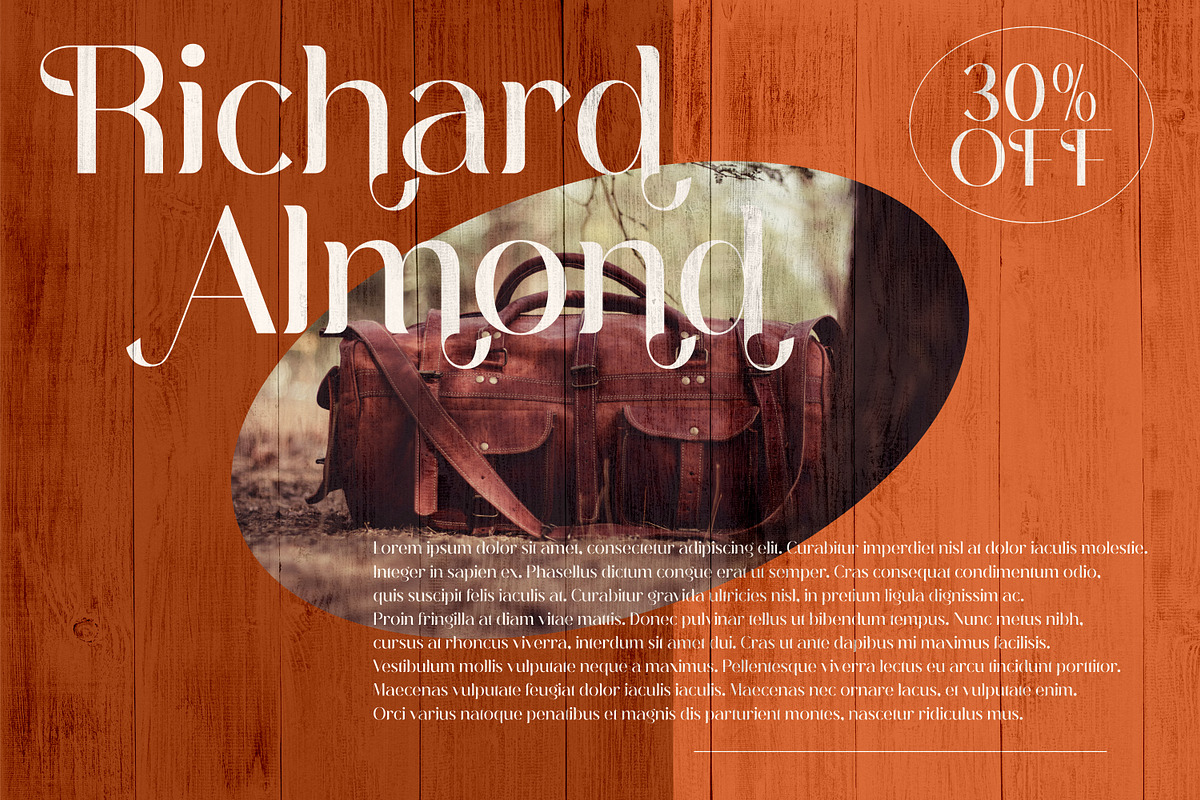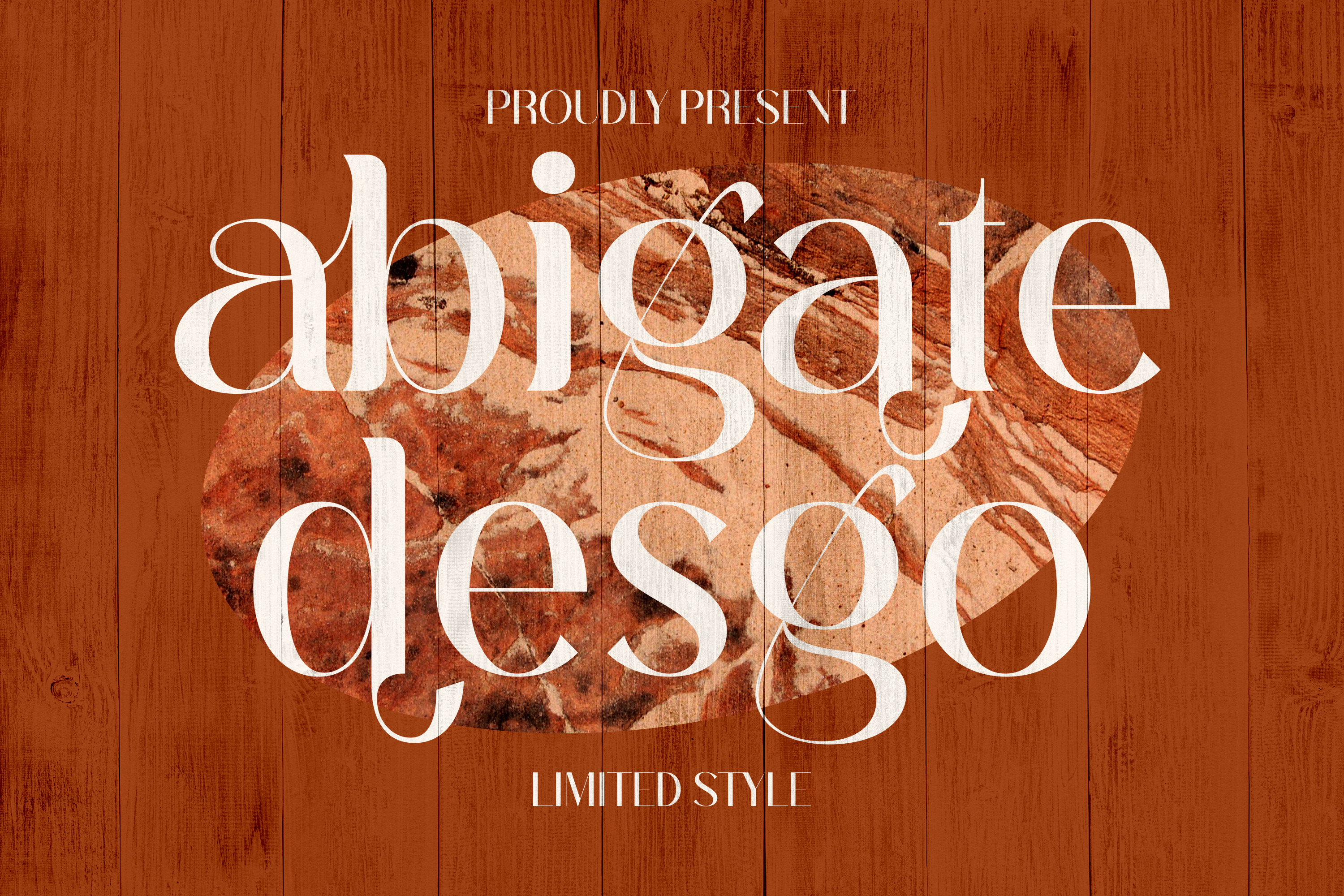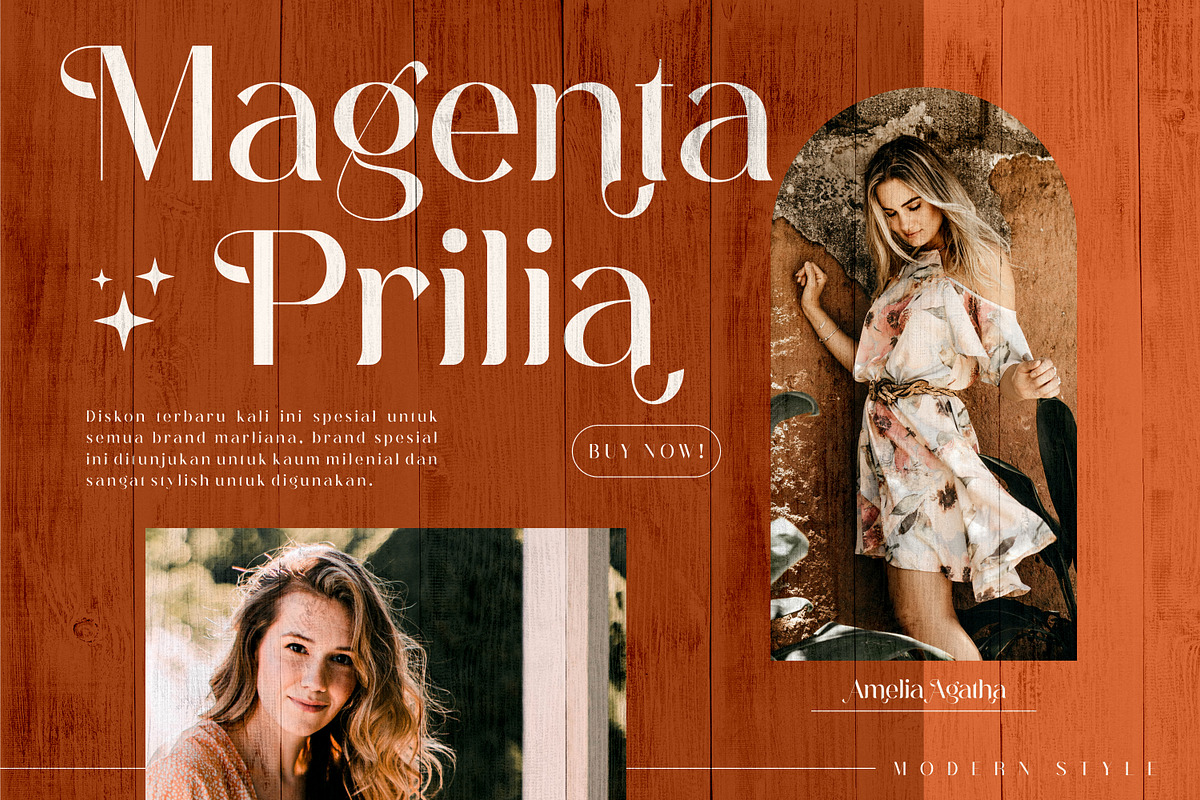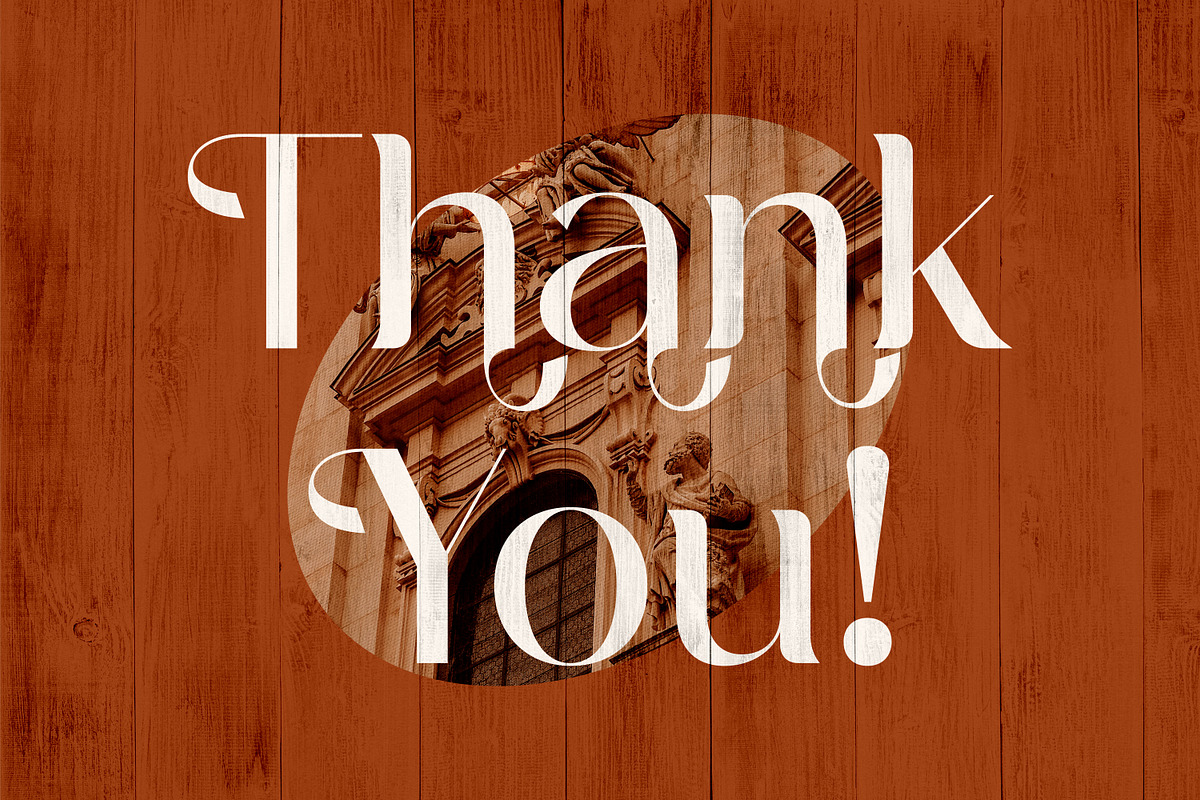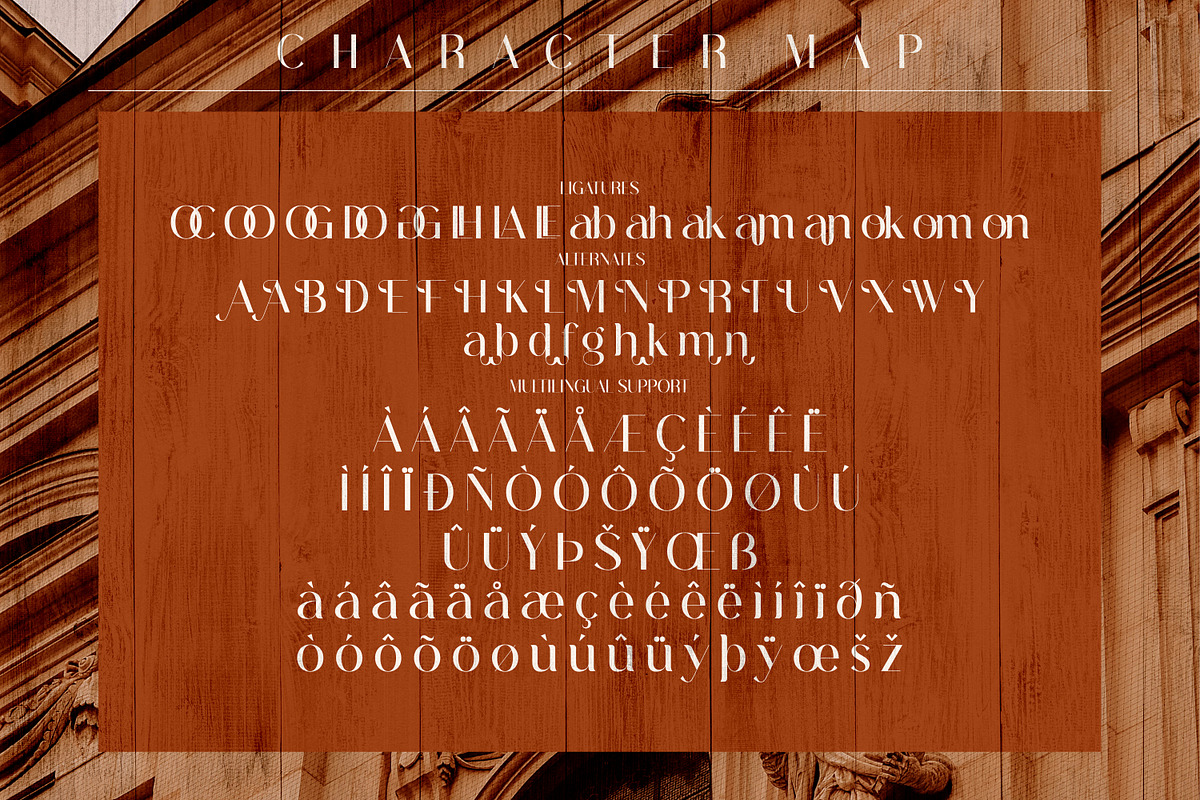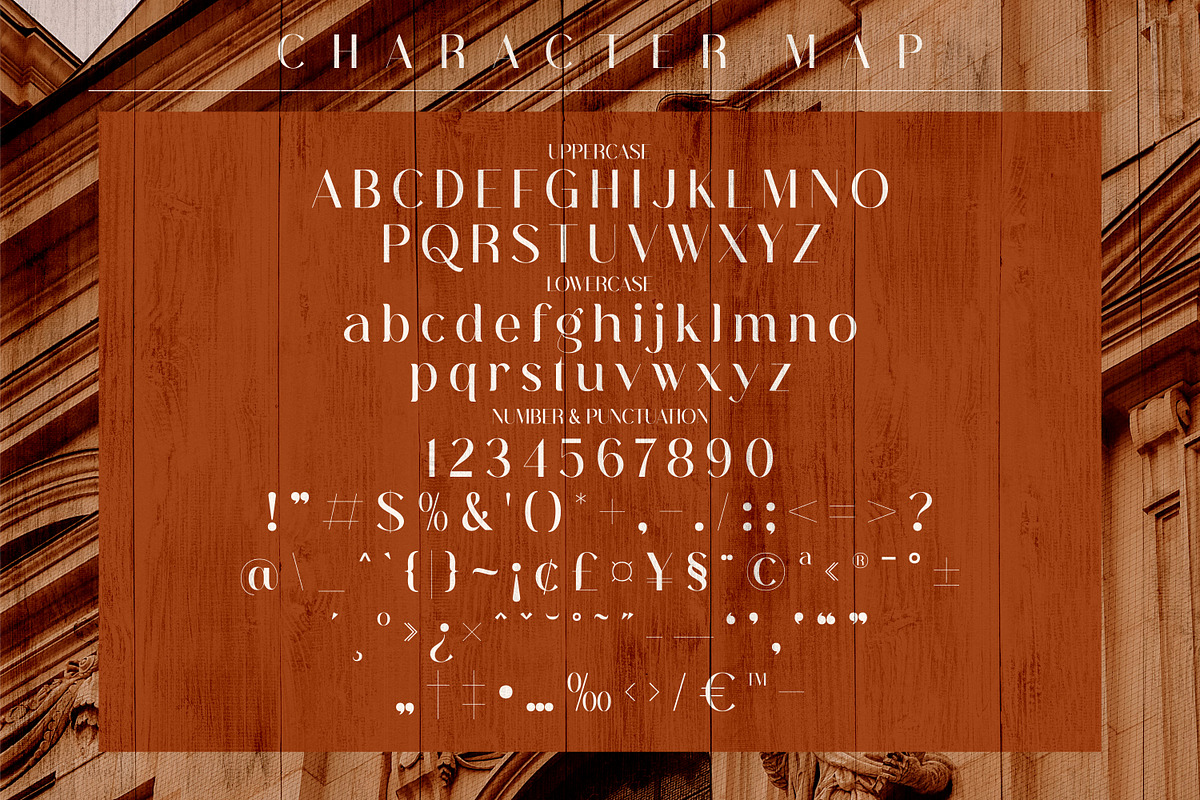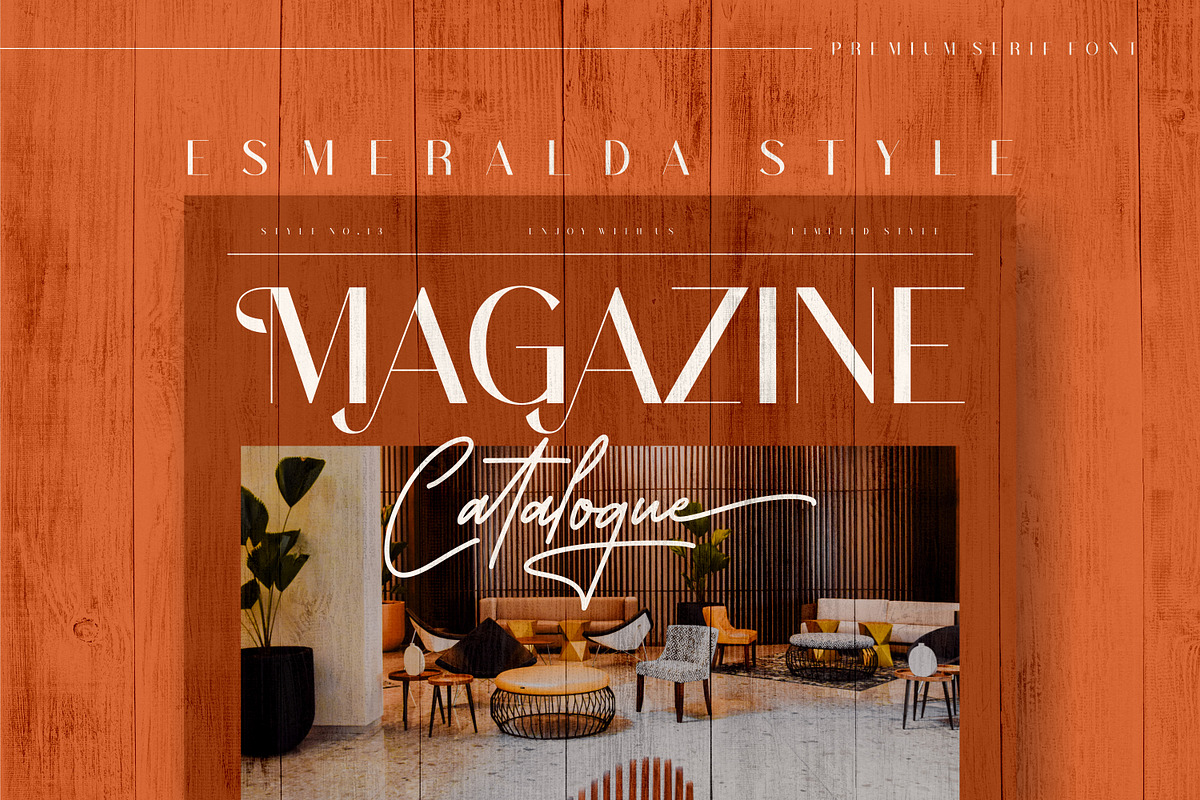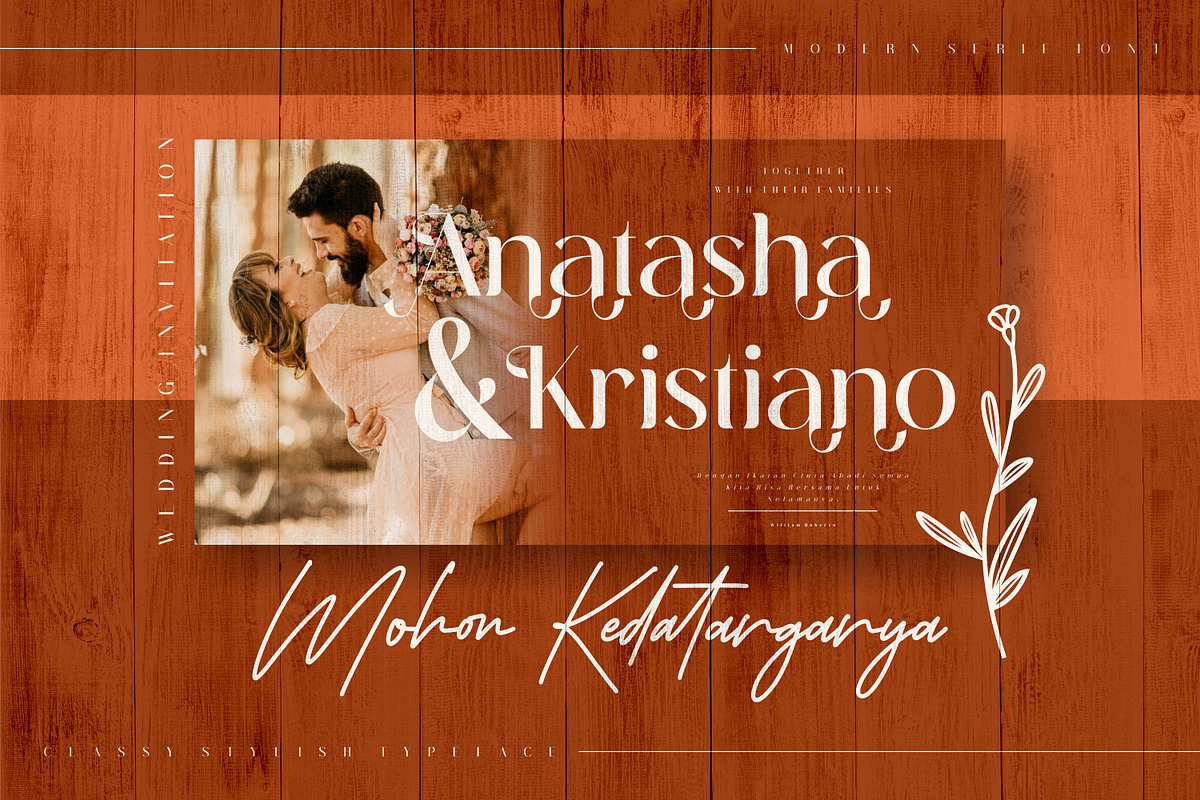
Abigate Desgo Stylish Serif Font
Proudly present abigate desgo Typeface, created by Storytype, A serif modern and classic typeface that has own unique style & modern look. This typeface is perfect for an elegant & luxury logo, book or movie title design, fashion brand, magazine, clothes, lettering, quotes, and so much more.